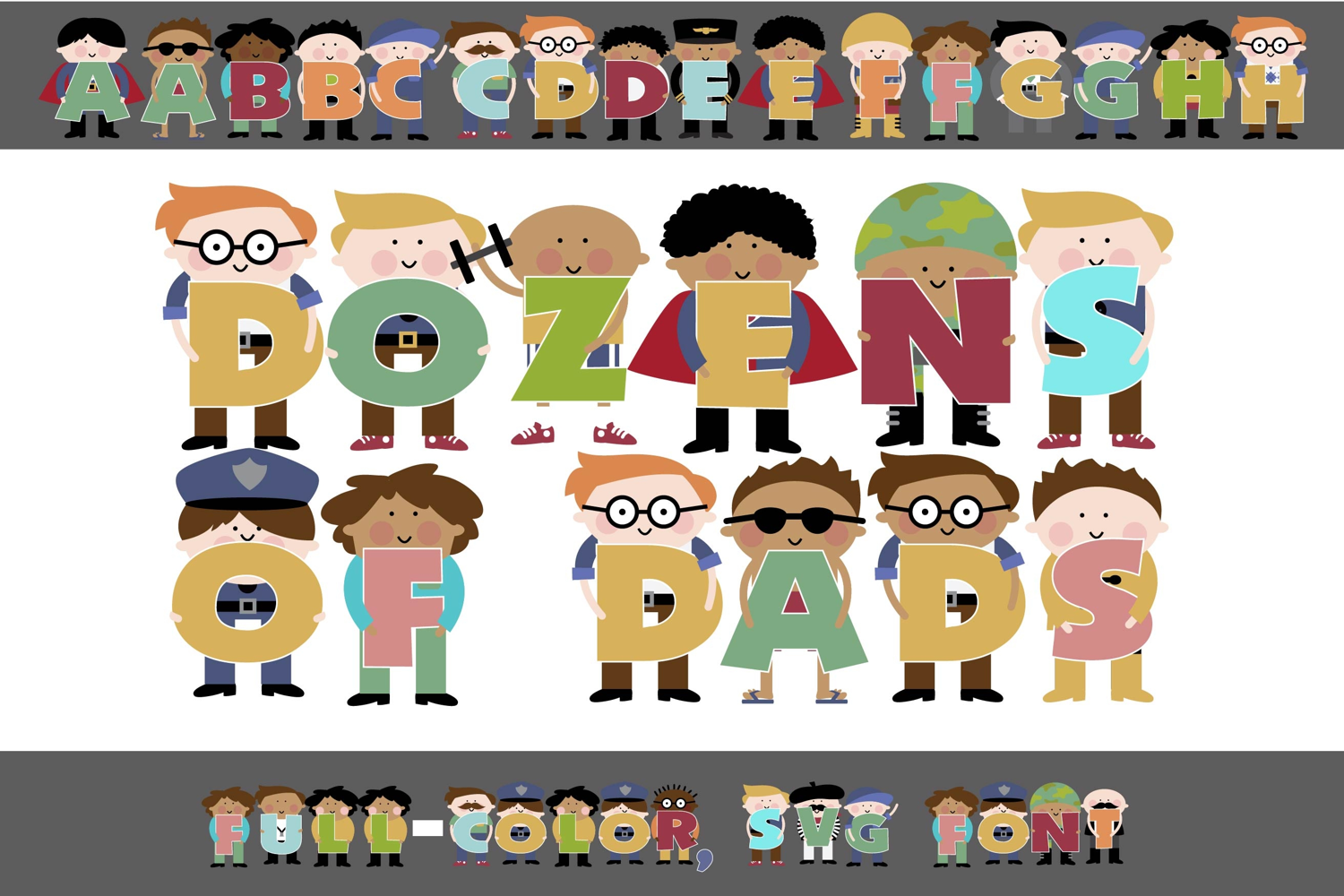
Dozens of Dads Too Color Font
This full-color, sans serif font features dozens of dads. There is an alt case of additional colors of each letter that you can access through your system's character map.